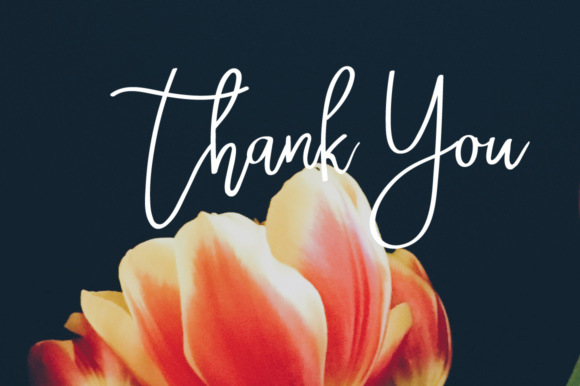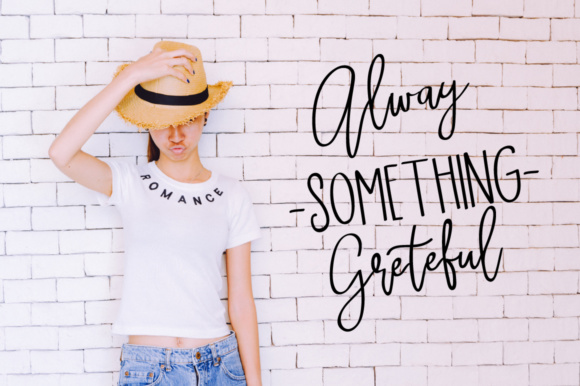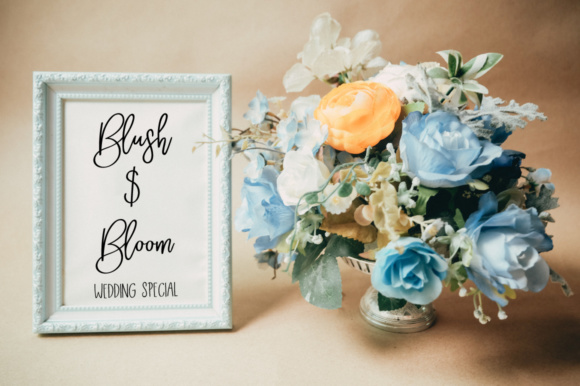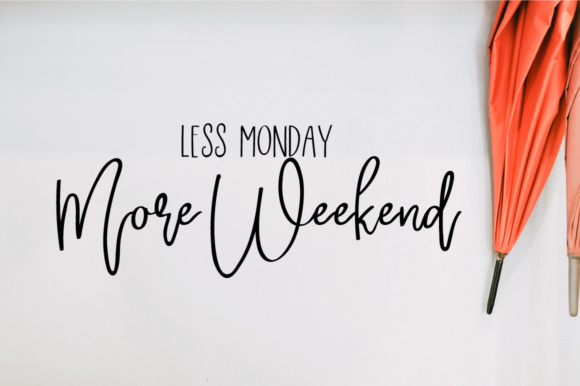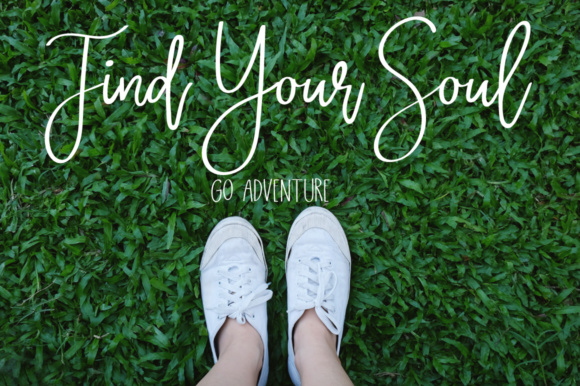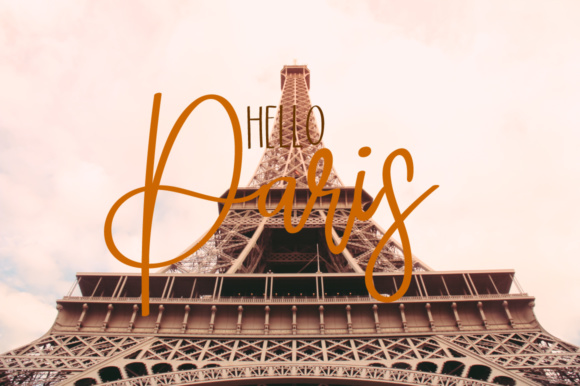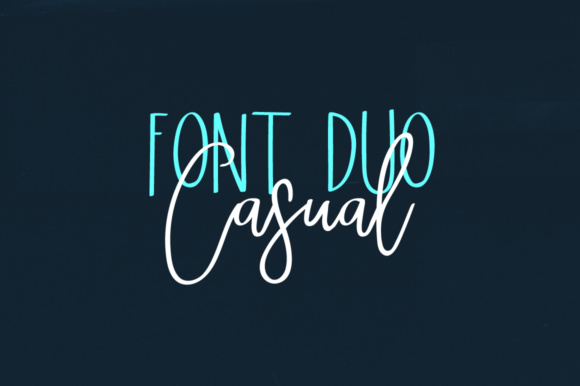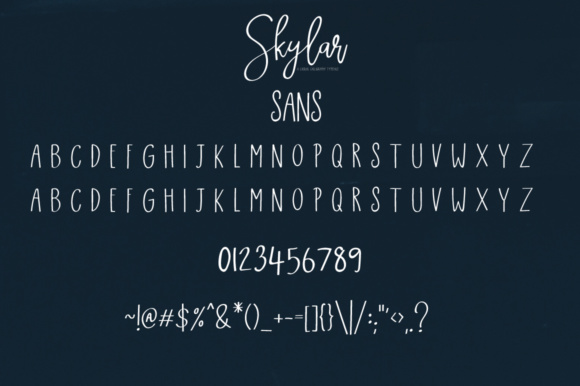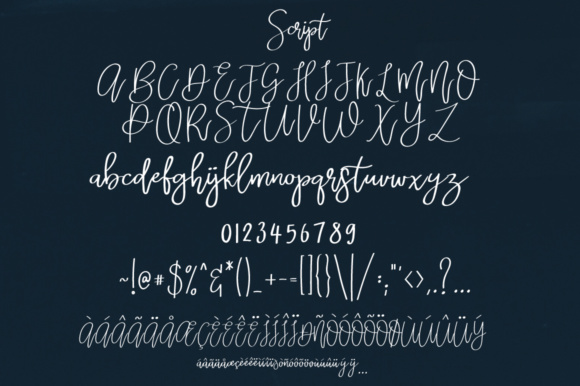
Skylar Font
Skylar is a casual font with a multitude of letter variations that helps you create that perfect and unique design you have been looking for.